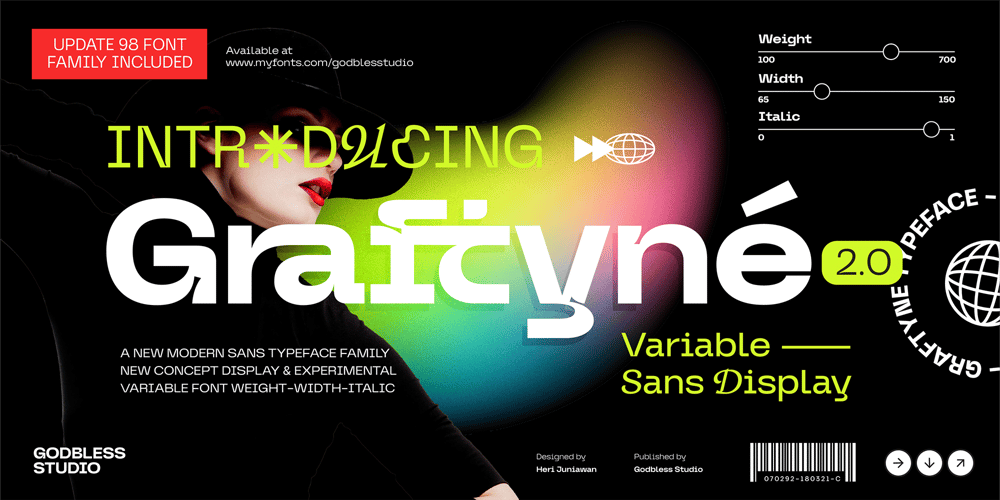
Graftyne Display Font Family was designed by Heri Juniawan and published by Godbless Studio. Graftyne Display contains 93 styles and family package options. Graftyne sans serif typeface with a unique personality. It comes in normal and display alternate, each with 7 weights variable.Graftyne sans serif typeface is flavor in motion and each part of its system works together to captivate you, combining emotion and usability, allowing you to create attractive and unique designs.graftyne is made experimentally following a futuristic style recipe with alternate characters made with inktrap and display that makes this font more stylish and varied.Graftyne is a variable font that has 7 weights from thin to bold. also includes alternates that are more varied with variables.Graftyne sans is a versatile font system, designed primarily for display uses with a need of visual impact.Feature : Alternate Ligature Discretionary Ligature Multilingual Numeral & Puctuation Wish you enjoy our font!